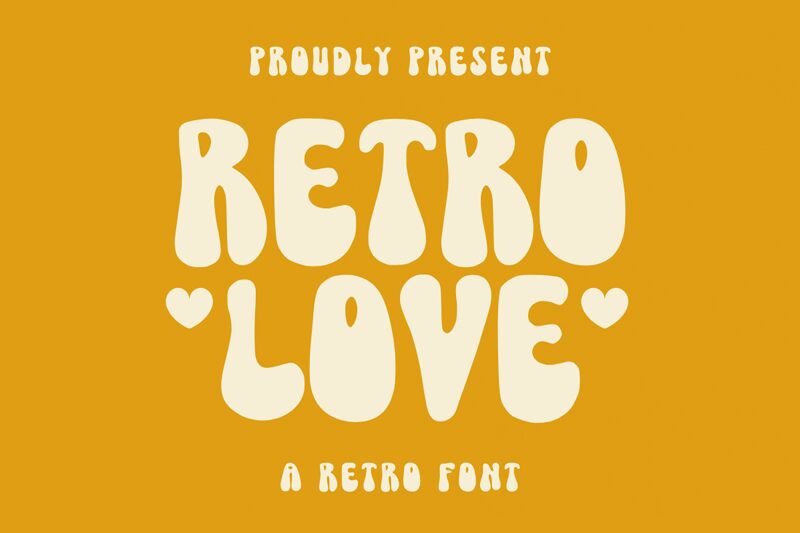
Retro Love font family by Muhammad Yafinuha is a free groovy font full of whirls and curls. This two-style letter set looks like it came straight from the vintage stores; it has a curvaceous, retro-inspired look with a fun and friendly atmosphere. Each letter is beautifully styled with decorative elements that provide a visually engaging letter set.
Create fun illustrations, headlines, posters, album covers, logos, branding, and advertising material. Each letter is bold, colorful, and visually interesting. With a vintage flair and nostalgic appeal, Retro Love fits in perfectly with other elements of 1960s–1970s design work.